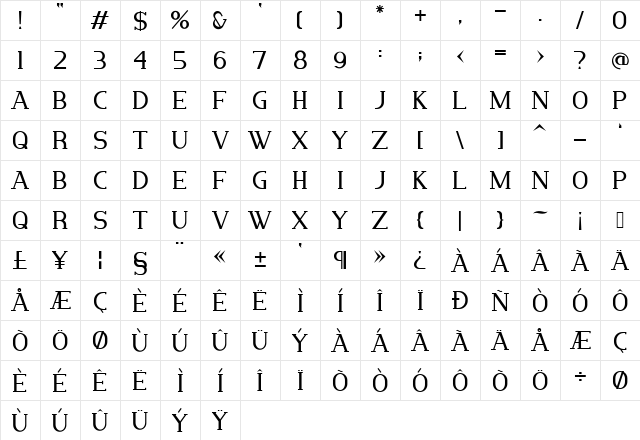
Marrowish Regular
Design Context for Marrowish Typeface
Marrowish takes a measured approach to typography — its balanced proportions and neutral character make it a reliable workhorse for both digital and print work.